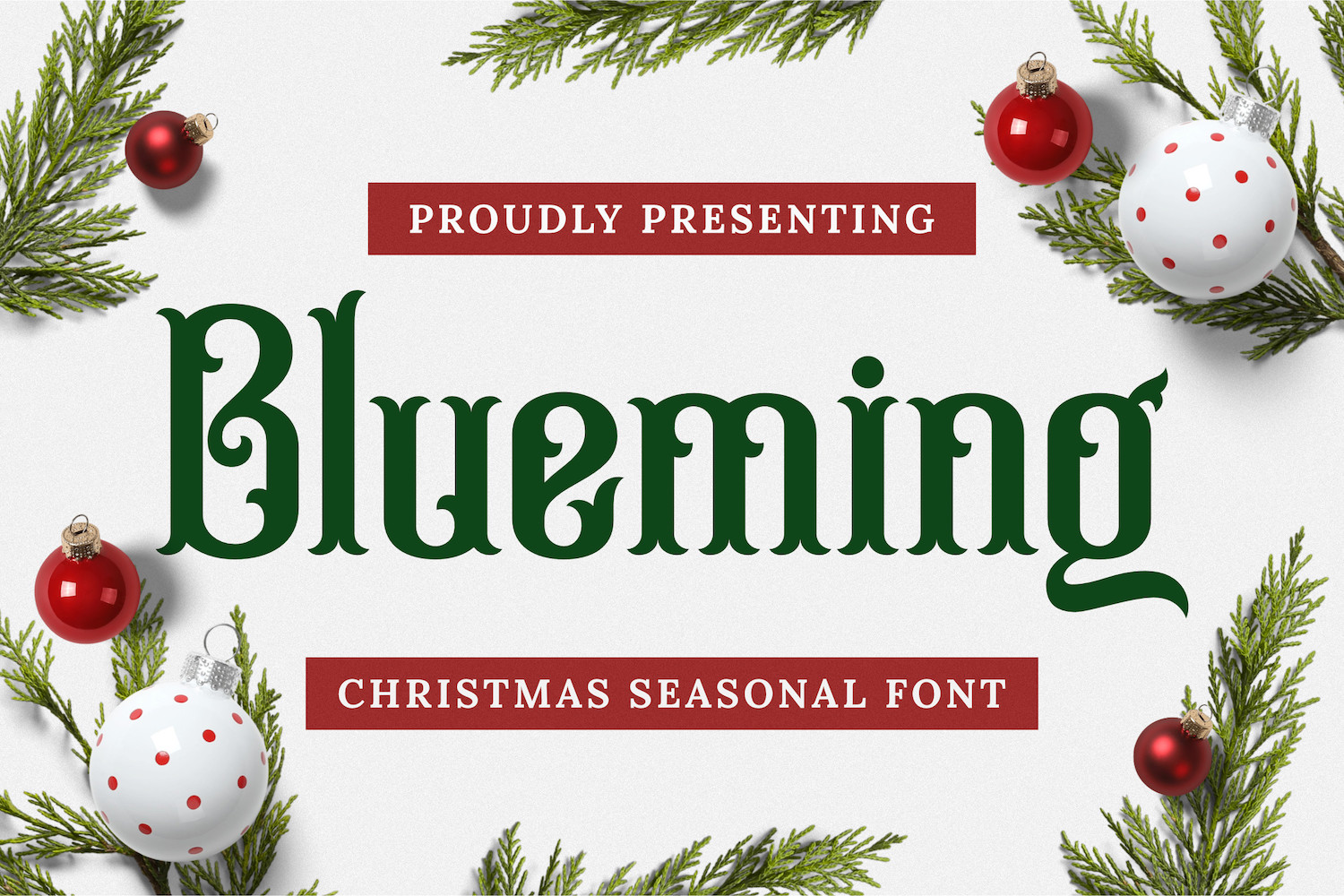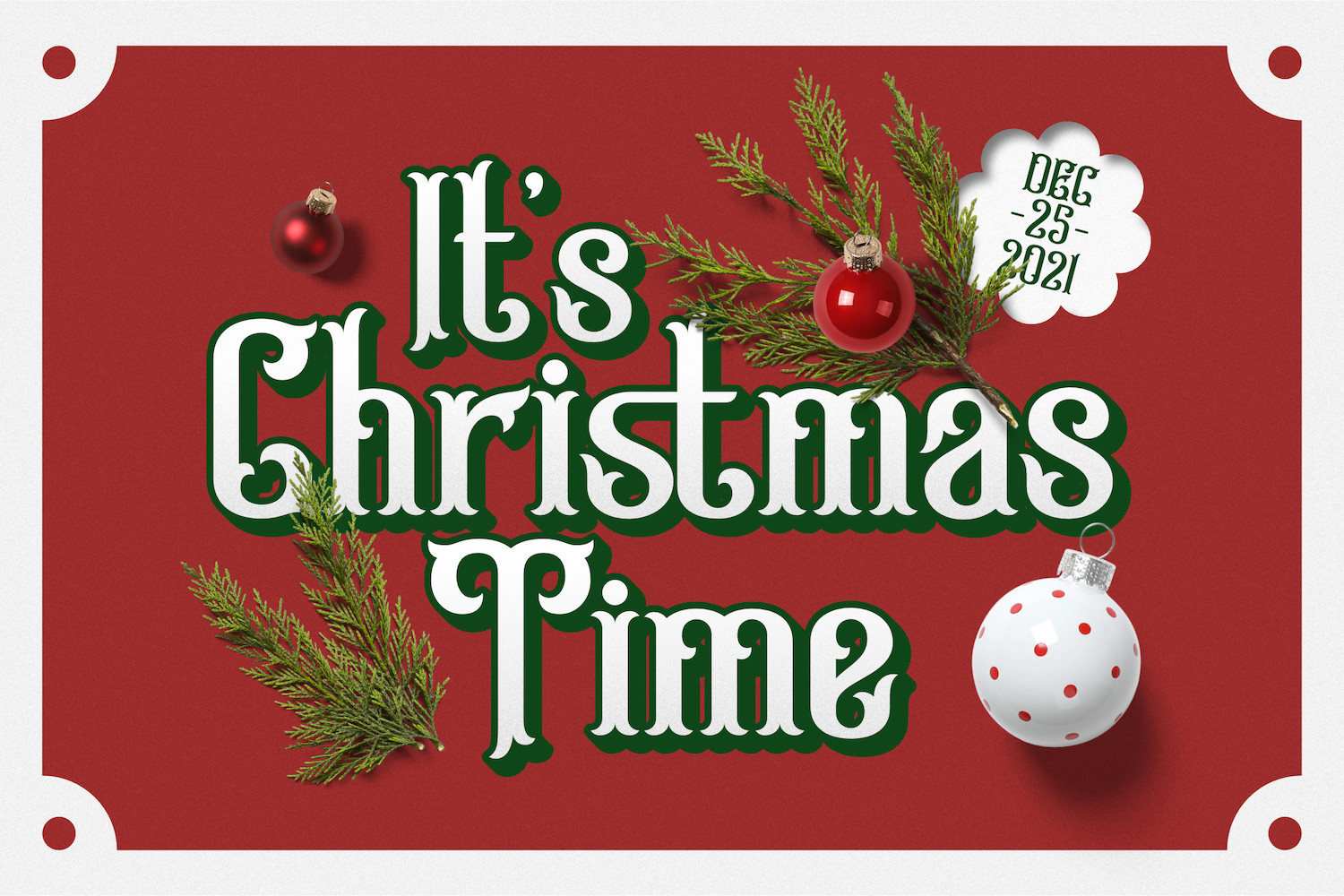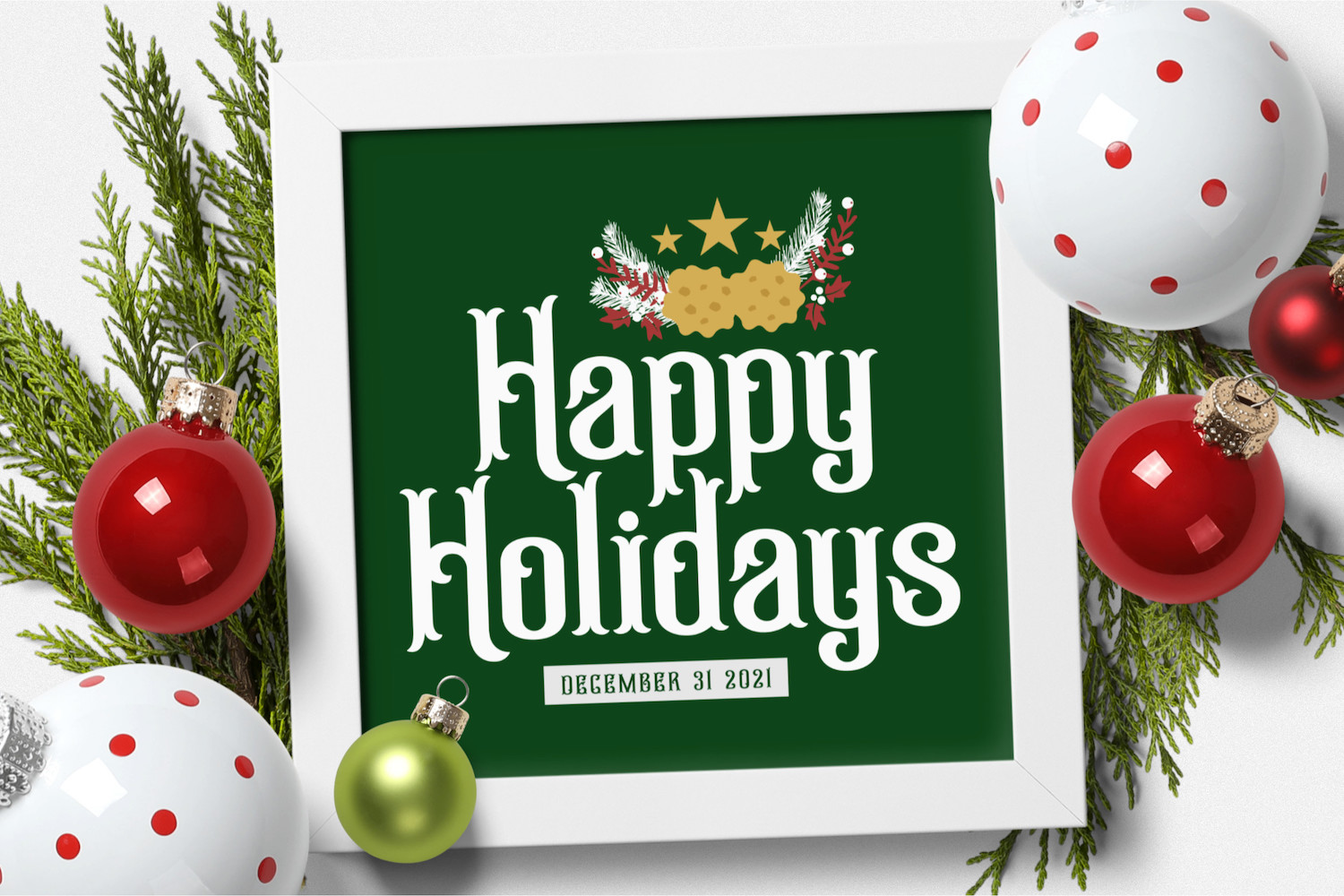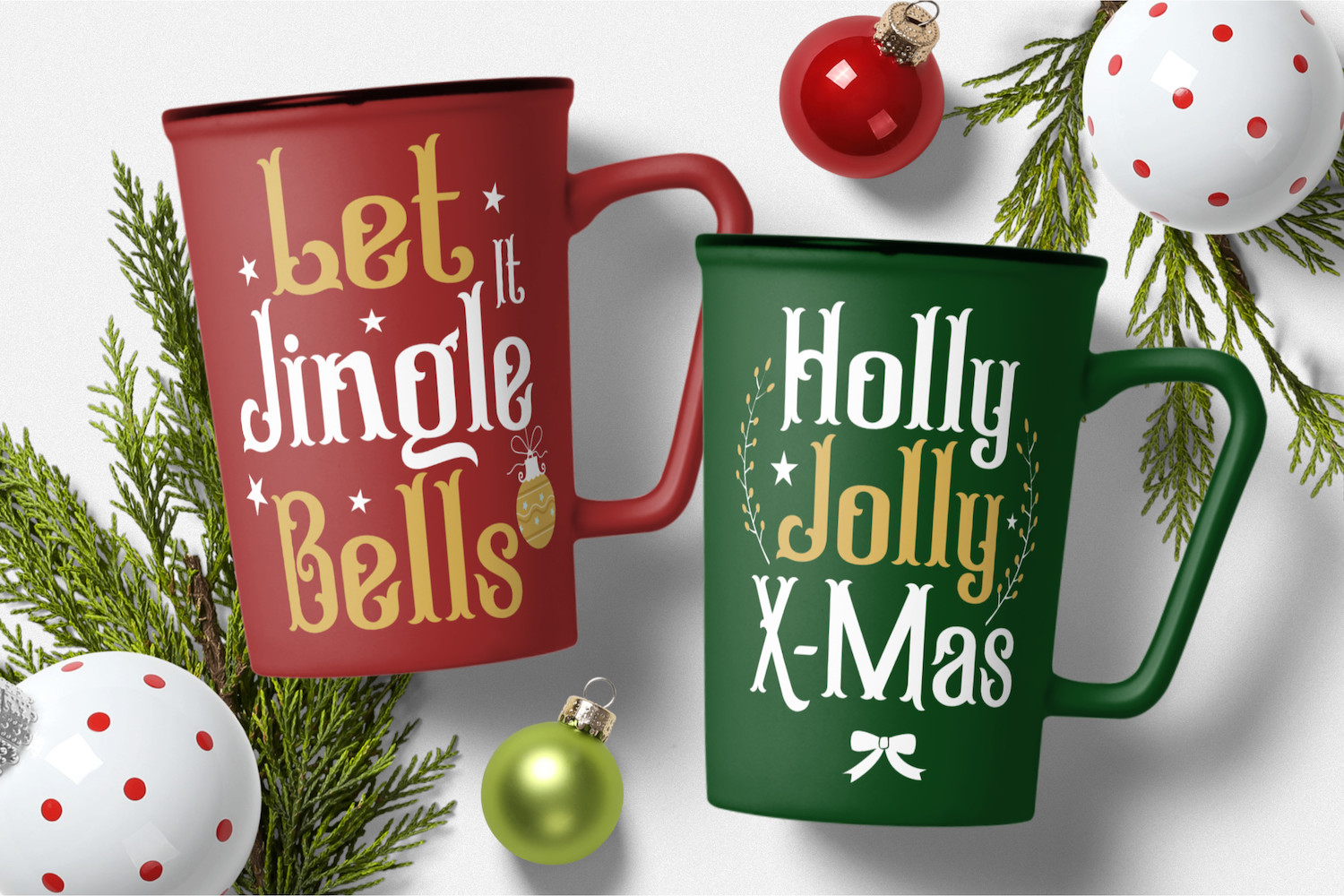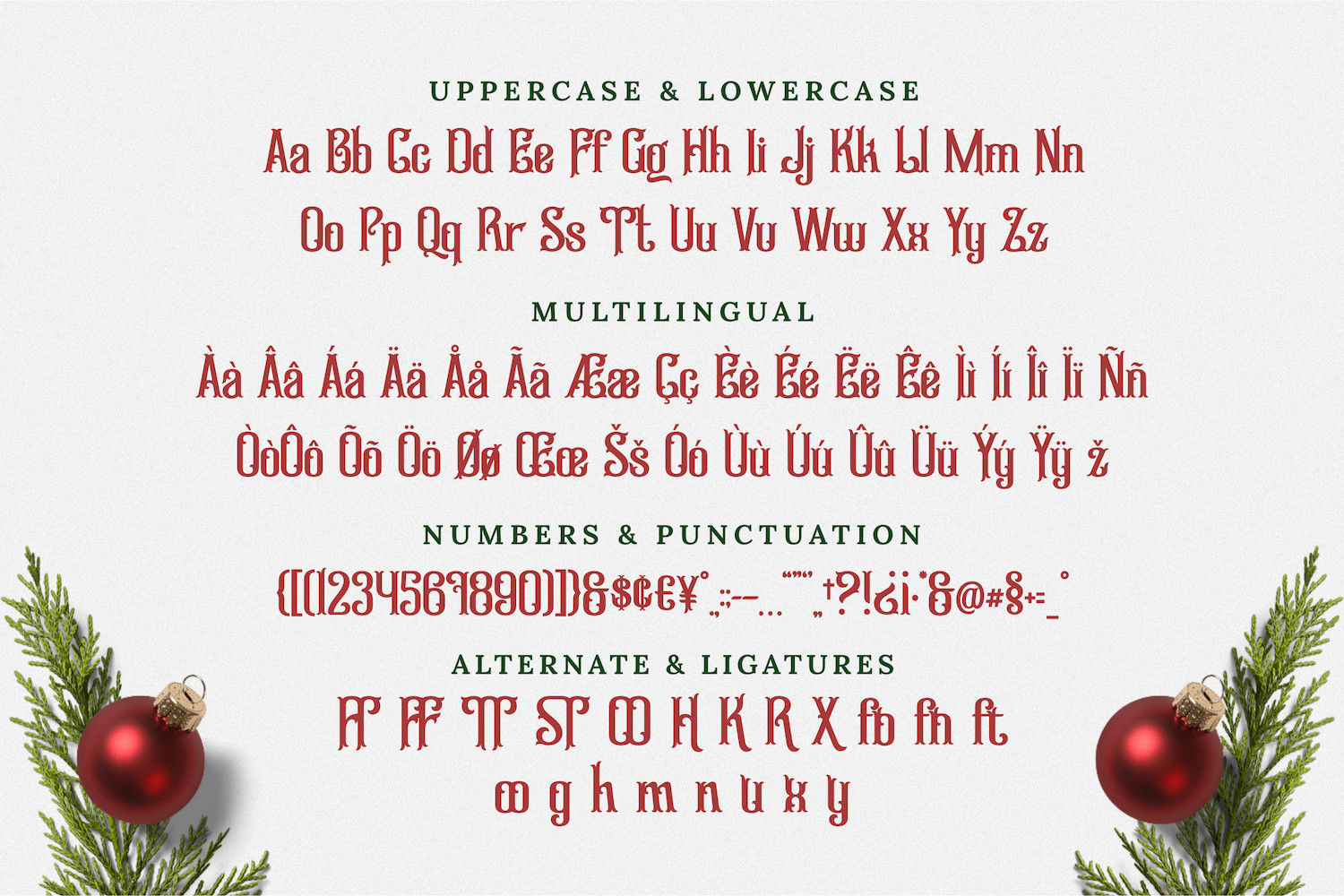
Blueming is a charming blackletter-style Christmas font that brings an elegant festive spirit to your holiday designs. With its ornamental curves and playful contrast, this font strikes a perfect balance between tradition and modern cheer, making it a standout choice for cards, posters, mugs, and seasonal branding.
This font features uppercase and lowercase characters, multilingual support, alternate glyphs, and ligatures that add flexibility and flair. Whether you’re creating classic Christmas quotes or decorating your holiday merchandise, Blueming delivers a bold, joyful impact with a vintage soul.
Blueming